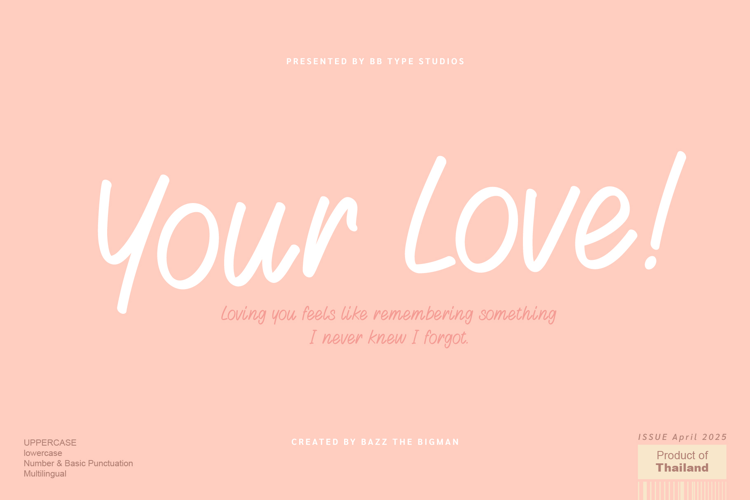
Introducing Your Love, an inviting and heartfelt handcrafted font perfect for any design. Its charming and one-of-a-kind style carves an ideal niche for short messages or playful event invitations, particularly wedding invitations. Unleash the power of Your Love and transform your design ideas from mere thoughts into captivating reality. With Your Love, the only boundary is the horizon of your creativity!